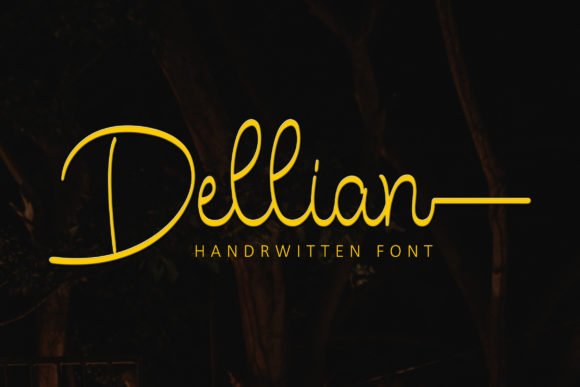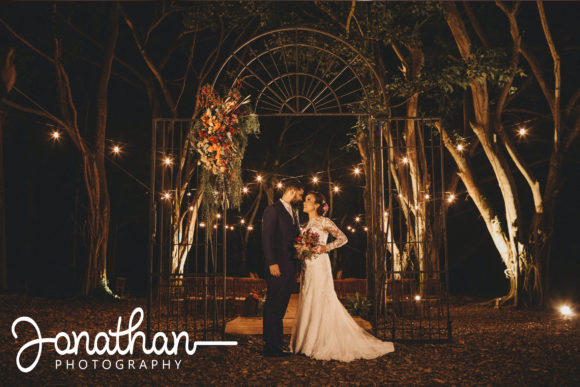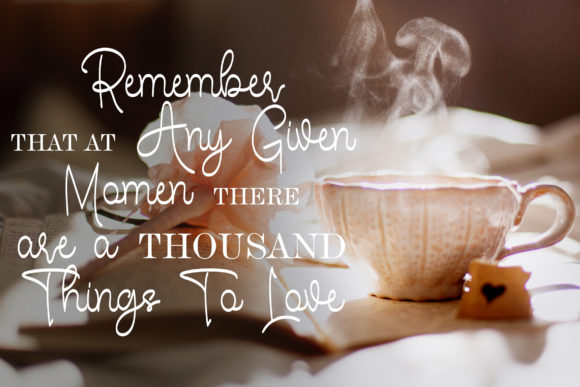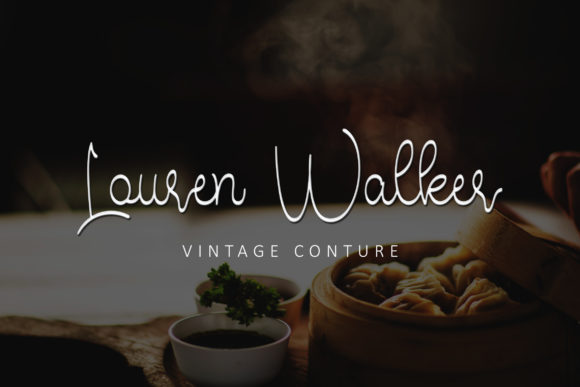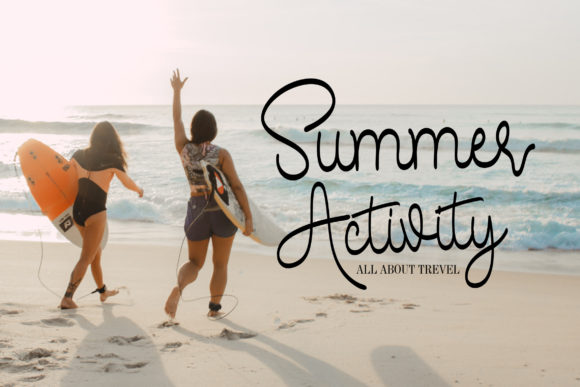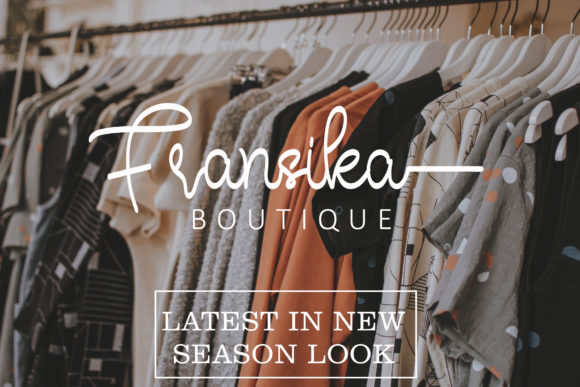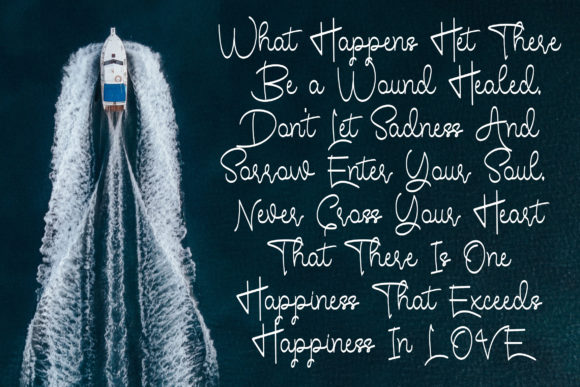
Discover the Timeless Charm of Dellian Font
As designers, we’ve all been there – staring at a blank canvas, struggling to find the perfect font to capture the essence of our next project. For me, it was a particularly tricky wedding invitation design that sparked the search for the perfect script font. After hours of browsing through font libraries, I stumbled upon Dellian Font, and I knew I had found the one. This sweet, soft hand-lettered script font has an incredibly classic style, yet still maintains a friendly feel that’s sure to win over any audience.
Dellian Font is a versatile tool that can be used to create stunning wedding invitations, beautiful stationery art, eye-catching social media posts, and adorable greeting cards. Its authentic feel makes it a valuable addition to any designer’s toolkit, allowing for endless creative possibilities. Whether you’re a seasoned pro or just starting out, Dellian Font is sure to become your go-to font for all your design needs.
- Unique Characteristics: Dellian Font features a unique blend of modern and vintage elements, with intricate details and subtle texture effects
Dellian Font Review
As a designer, I was excited to dive into the Dellian font and see what it has to offer. Here’s my honest review.
✨ The Dellian font has a unique and elegant feel to it, perfect for creating a sophisticated and modern look. The font is highly legible and easy to read, making it great for body text and headings.
✨ The font also has a wide range of weights, from light to bold, allowing for a high degree of customization and flexibility in design projects.
⚠️ One of the main limitations of the Dellian font is its limited language support. It only supports Latin and Cyrillic scripts, which may be a problem for designers working on projects that require other languages.
⚠️ Additionally, the font may not be suitable for very small text sizes, as it can become difficult to read at very small scales.
Overall, I think the Dellian font is a great choice for designers looking for a unique and modern font. While it may have some limitations, its elegant feel and high legibility make it a great option for a wide range of design projects.
Design Considerations
Here are some design considerations to keep in mind when using the Dellian font:
- Use it for body text and headings for a sophisticated look.
- Avoid using it for very small text sizes.
- Be mindful of language support limitations.
Getting the Most Out of Dellian Font
To get the most out of the Dellian font, use it in combination with other design elements, such as bold text or images. Experiment with different font sizes and styles to create visual hierarchy and emphasis. Use the font in headings and titles to create a consistent brand identity.
The Dellian font is suitable for a variety of design projects, including:
- Brand identity and logos
- Business cards and stationery
- Web design and digital marketing
- Print materials and brochures